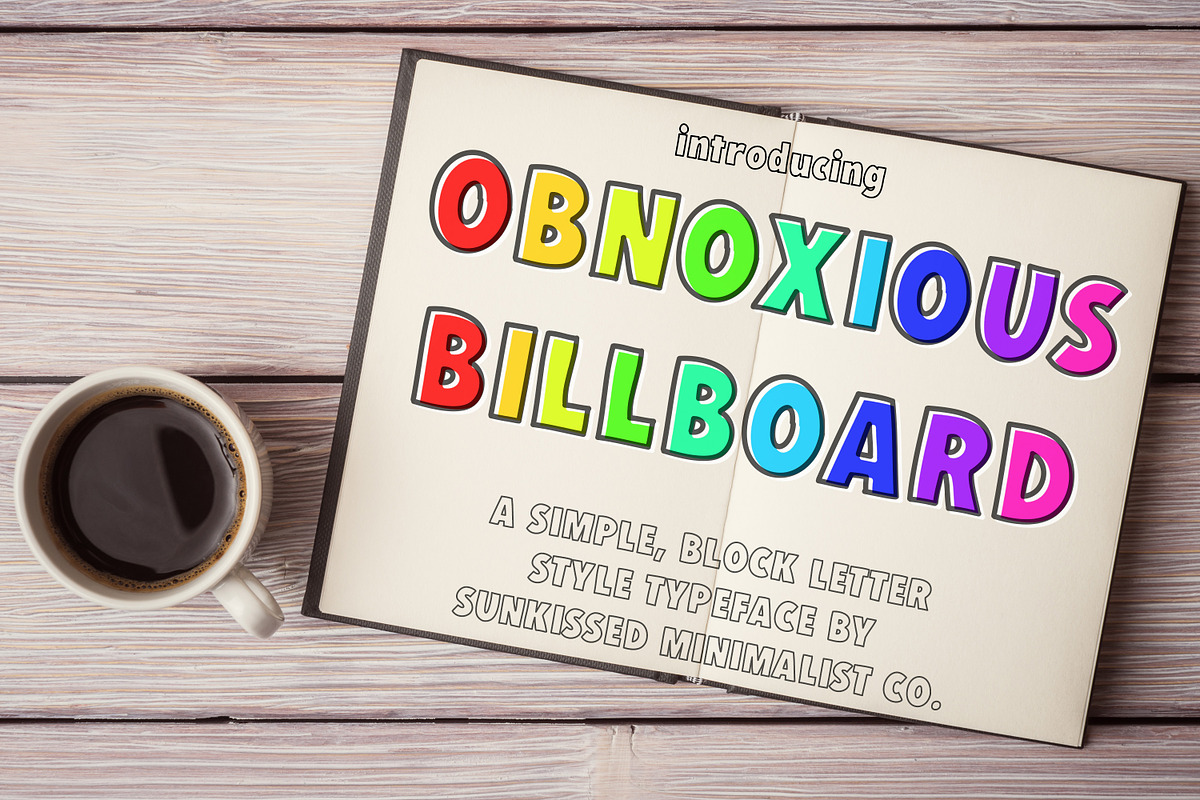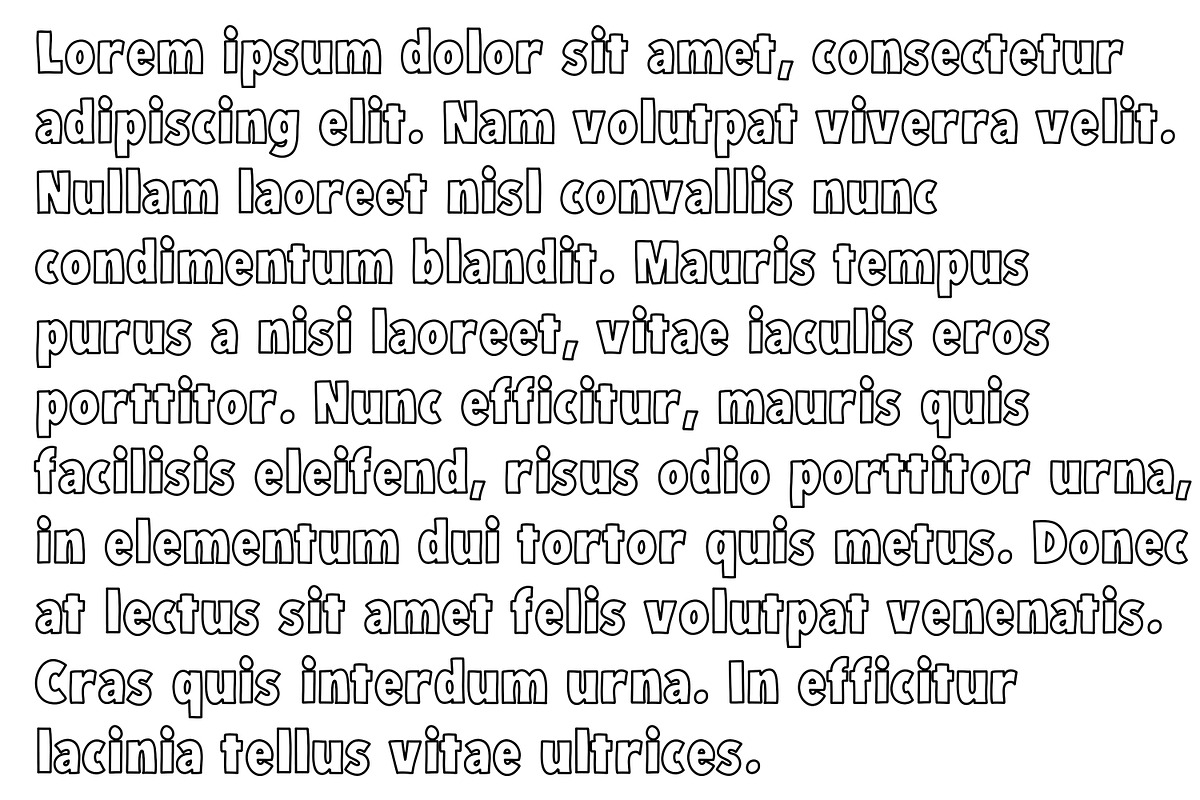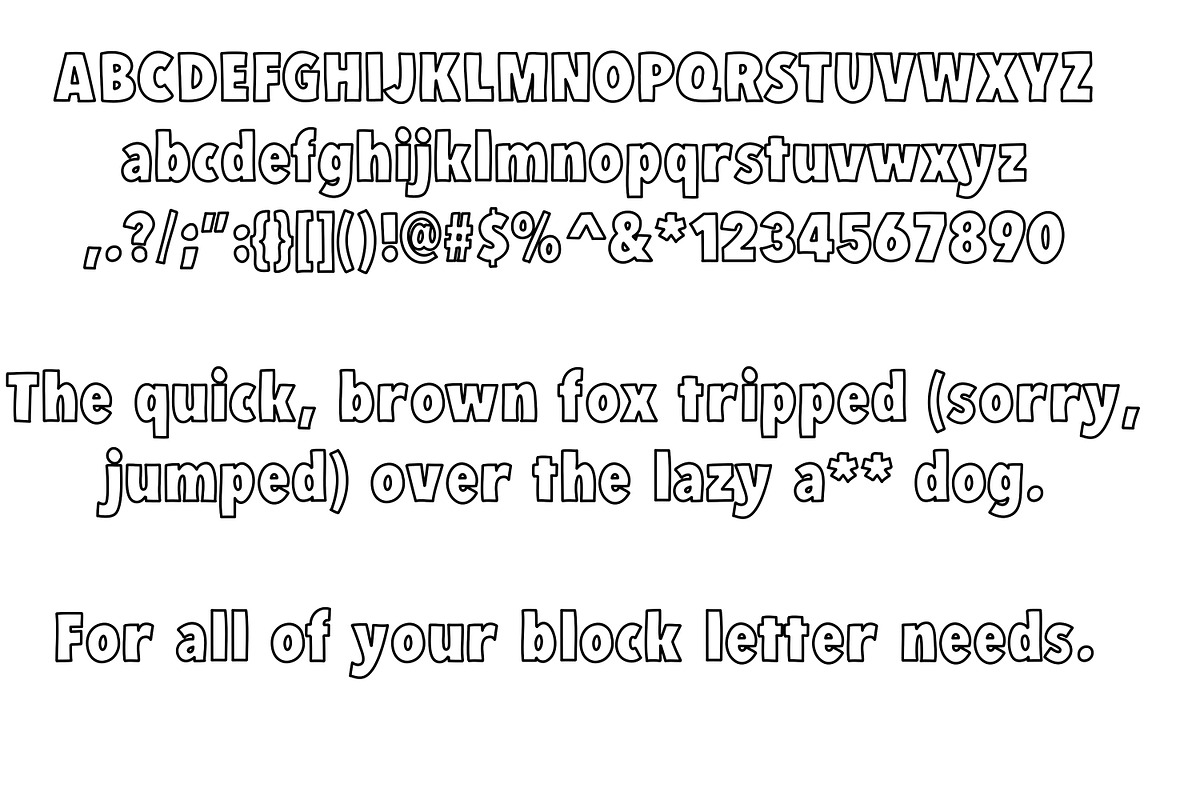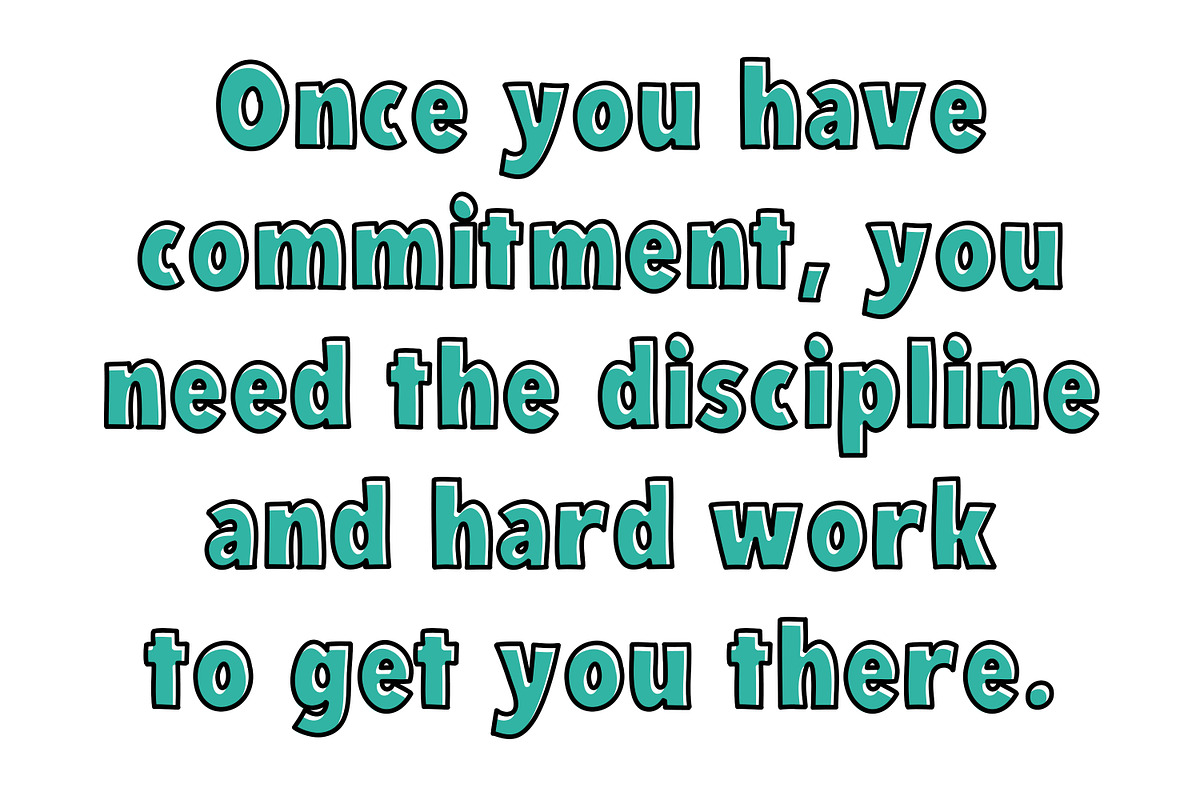
Obnoxious Billboard
Obnoxious Billboard is a simple, block lettering style typeface hand-drawn by Sunkissed Minimalist Co.
This font can be used for all sorts of things: coloring page designs, logos, and all sorts of fun crafts.